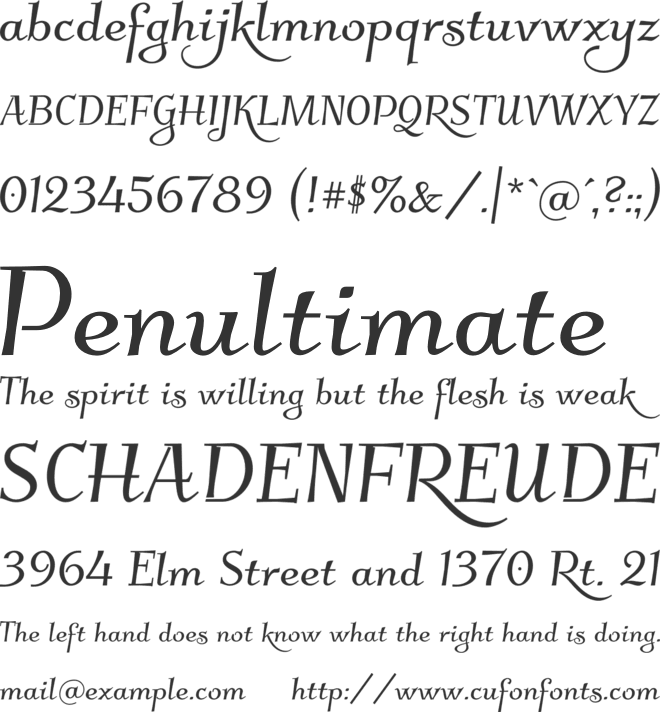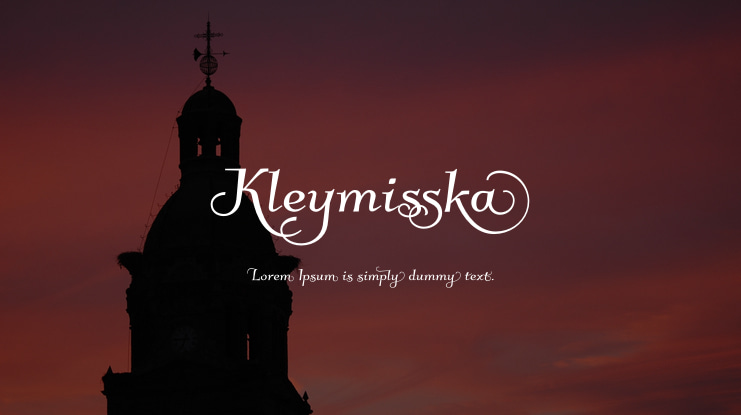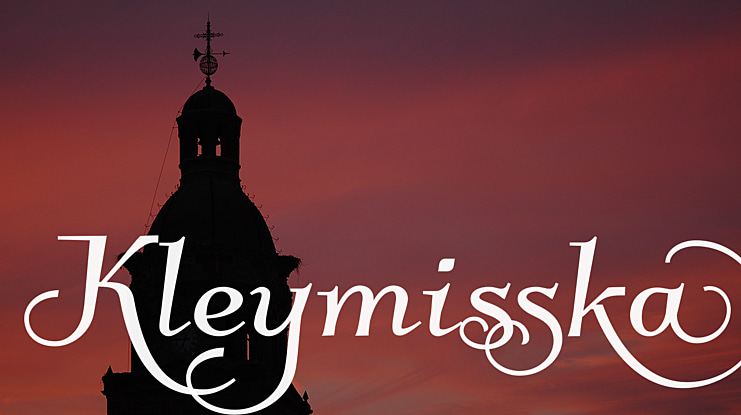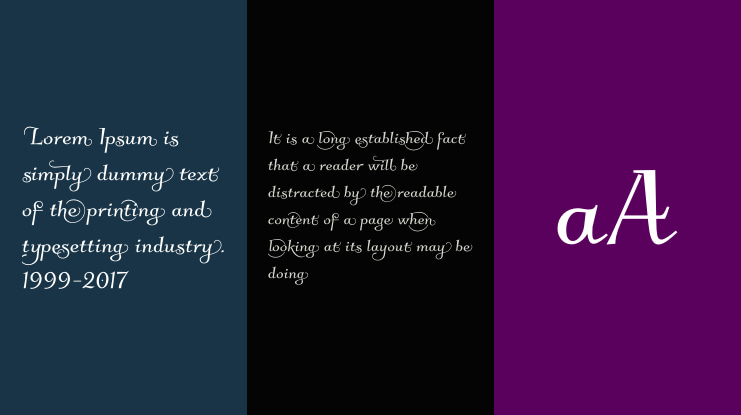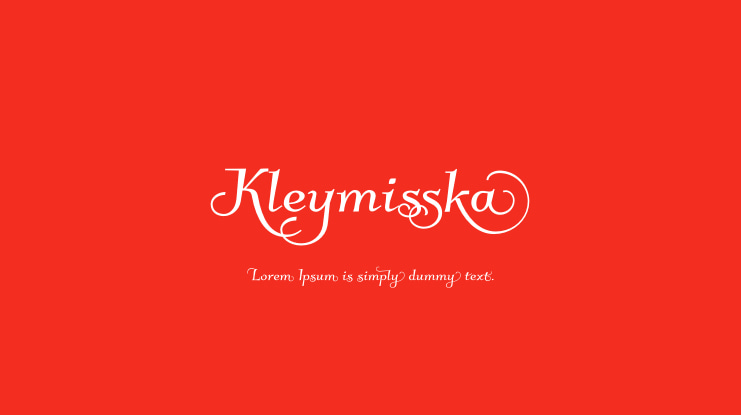
Kleymisska Font
Cur­sive, dec­o­ra­tive font Kleymis­ska with con­textual Alter­nates, Lig­a­tures, ini­tial and ter­minal Forms (as con­textual Alter­nates). Font is newer, bold ver­sion of font Kleymis­sky